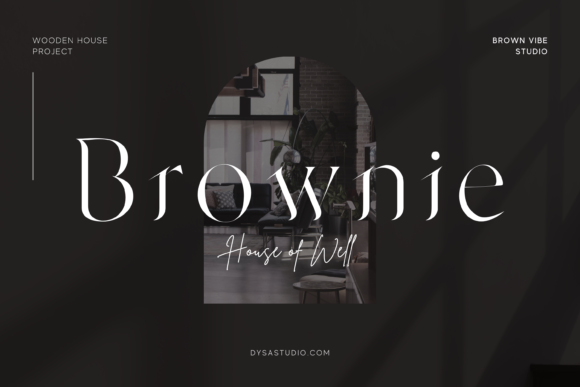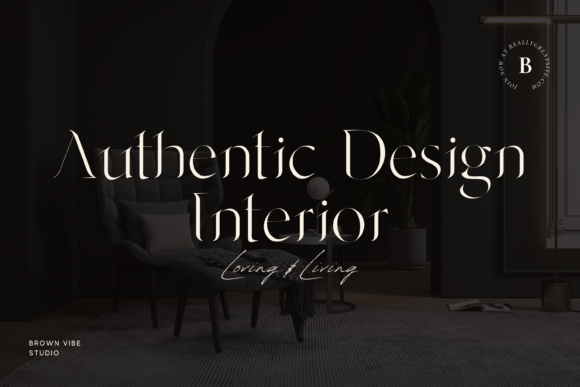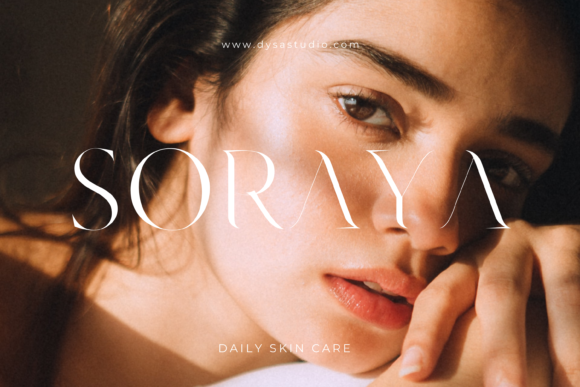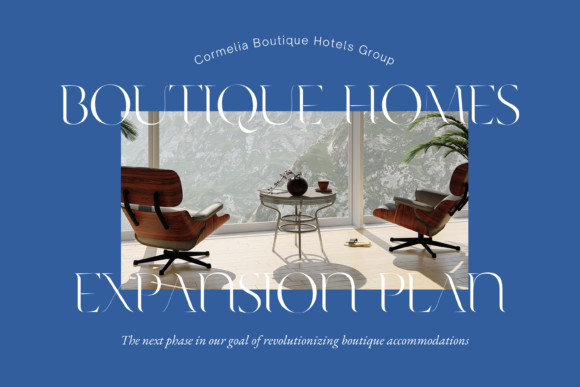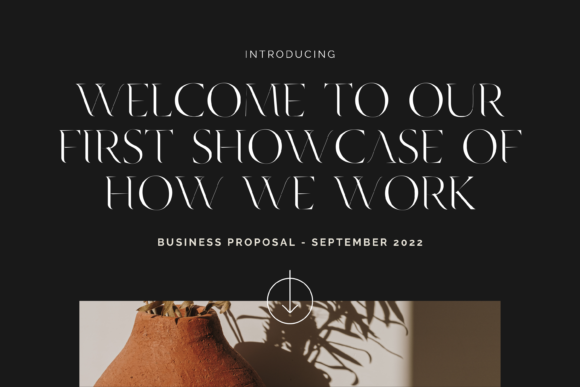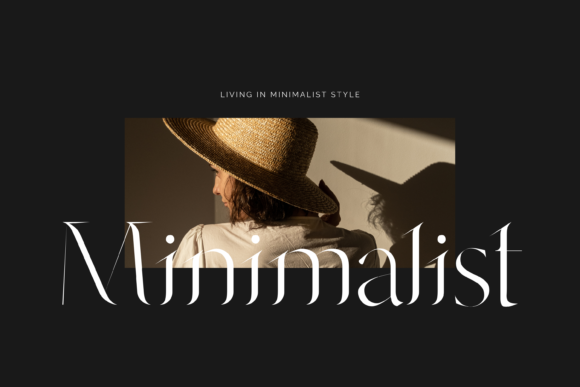
Discover the Elegance of Belagoya Font: Elevate Your Designs with its Delicate Serif Charm
In the world of typography, few fonts capture the essence of elegance and sophistication as beautifully as Belagoya. This exquisite serif font has been making waves in the design community, and for good reason. Its delicate lines, refined features, and classic appeal make it the perfect choice for creating stunning visual content. Whether you’re a seasoned designer or a crafty DIY enthusiast, Belagoya is sure to captivate your audience with its ravishing style.
What Makes Belagoya Font So Special?
Belagoya’s unique charm lies in its elegant and delicate serif design. The font’s slender lines and subtle curves evoke a sense of refinement and luxury, making it ideal for projects that require a touch of sophistication. From wedding invitations and stationery to social media posts and branding materials, Belagoya’s versatility knows no bounds.
Perfect for Wedding Invitations and Stationery
When it comes to wedding invitations and stationery, the font choice can make all the difference. Belagoya’s elegant design makes it a perfect fit for creating beautiful and memorable wedding stationery. Imagine setting the tone for your special day with a gorgeous invitation that features Belagoya’s delicate serifs. The font’s classic appeal ensures that your wedding stationery will stand the test of time, remaining timeless and sophisticated for years to come.
Eye-Catching Social Media Posts and Branding
In today’s digital age, social media is a crucial platform for businesses and designers to showcase their work. Belagoya font can help you create eye-catching social media posts that stand out from the crowd. Its refined features and elegant lines make it perfect for creating engaging content that resonates with your audience. Whether you’re promoting a product, service, or simply showcasing your design skills, Belagoya is sure to make your content shine.
Why Designers and Crafters Love Belagoya Font
So, what makes Belagoya a favorite among designers and crafters? Here are just a few reasons:
- Elegant Design: Belagoya’s delicate serif design makes it perfect for creating sophisticated and refined visual content.
- Versatility: The font’s versatility knows no bounds, making it suitable for a wide range of projects, from wedding invitations to social media posts.
- Easy to Read: Despite its delicate design, Belagoya is easy to read, making it perfect for body text and longer content.
- Unique Charm: Belagoya’s unique charm sets it apart from other serif fonts, making it a great choice for designers looking to add a touch of personality to their work.
Tips for Using Belagoya Font Effectively
To get the most out of Belagoya font, here are a few tips to keep in mind:
- Pair with Bold Fonts: Pair Belagoya with bold fonts to create a striking contrast that adds visual interest to your design.
- Use for Headings and Titles: Use Belagoya for headings and titles to add a touch of elegance and sophistication to your design.
- Experiment with Colors: Experiment with different colors to find the perfect shade that complements Belagoya’s delicate design.
In conclusion, Belagoya font is a stunning serif font that is sure to elevate your designs with its delicate charm. Its elegant design, versatility, and unique charm make it a perfect choice for designers and crafters looking to create sophisticated and refined visual content. Whether you’re creating wedding invitations, social media posts, or branding materials, Belagoya is sure to captivate your audience with its ravishing style. So why wait? Fall in love with Belagoya’s elegant design and take your designs to the next level!